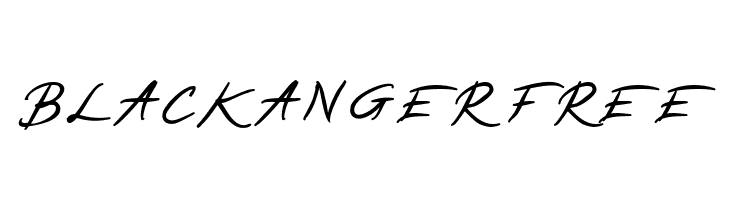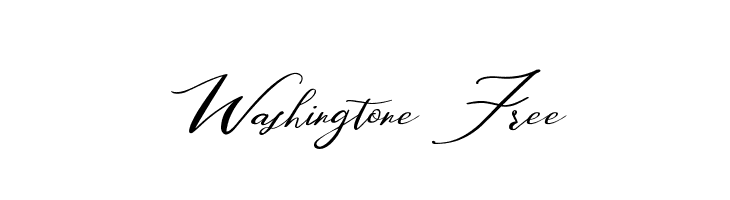
A bold, grunge-style decorative font with a vintage, distressed look.
A bold, brush-style font with expressive, hand-painted strokes.
An elegant script font with flowing, cursive letterforms and delicate swashes.
A graceful script font with flowing, connected strokes and elegant flourishes.
A bold, energetic script font with fluid, connected letterforms.
A modern, rounded sans-serif font with excellent readability and balanced medium weight.
A decorative font with floral elements and a playful, hand-drawn style.
A playful, bold font with a chunky, hand-drawn style.
A playful, spooky font with bold, irregular letterforms and thematic elements.
A bold, playful font with a dynamic, wavy appearance.
A bold, playful font with irregular shapes and a dynamic, whimsical style.
A bold, staggered, and italicized font with a playful and dynamic style.
A bold, playful font with a three-dimensional shadow effect and cartoonish style.
A bold, jagged font with an irregular, monster-themed design.
A bold, playful italic font with a dynamic and whimsical style.
A bold, distorted italic font with a chaotic and energetic style.
A bold, playful font with a cartoon-like, energetic style.
A bold, playful font with a shadow effect, perfect for fun and engaging designs.
A bold, playful font with a staggered, dynamic design.
A bold, expanded, and italicized font with a playful, cartoon-like style.
A bold, condensed, and italicized font with a playful, energetic style.
A bold, playful font with a chunky, expanded style and a retro comic book feel.
A bold, playful font with thick, uneven strokes and a cartoonish style.
A bold, playful font with a shadow effect and slight italicization.
A bold, staggered italic font with dynamic and playful characteristics.